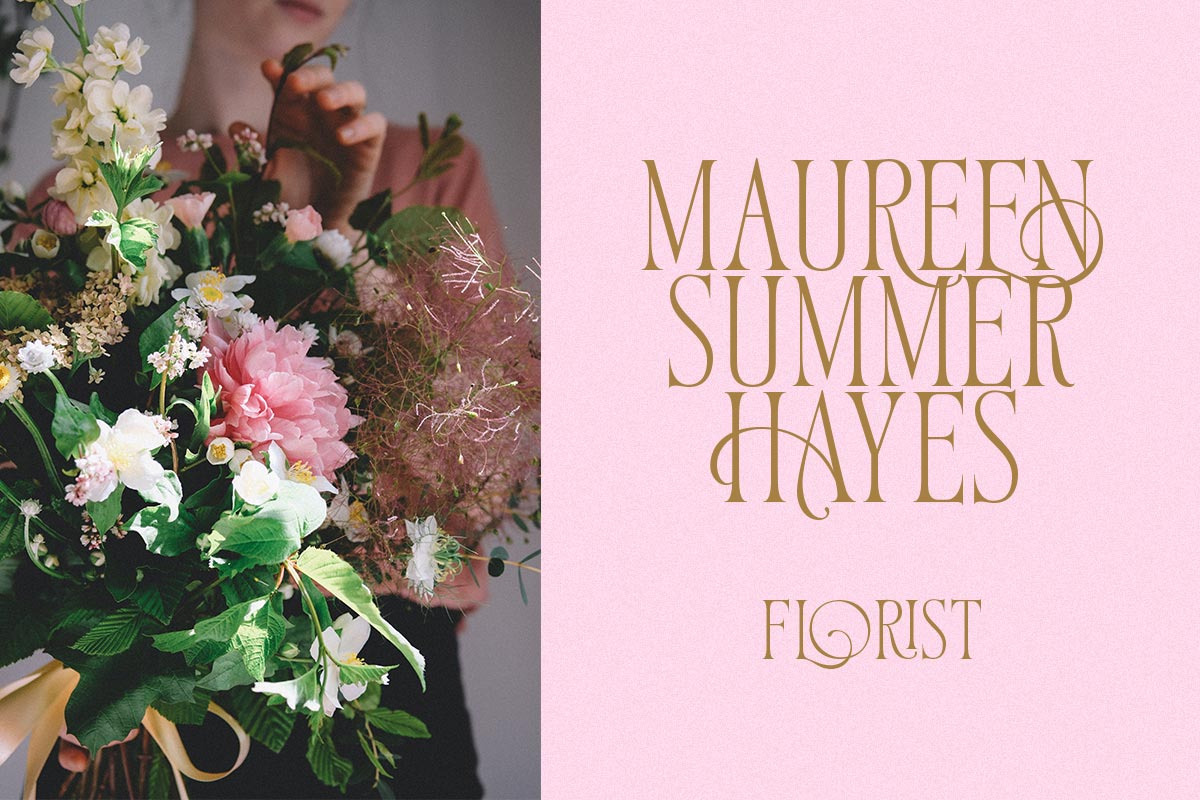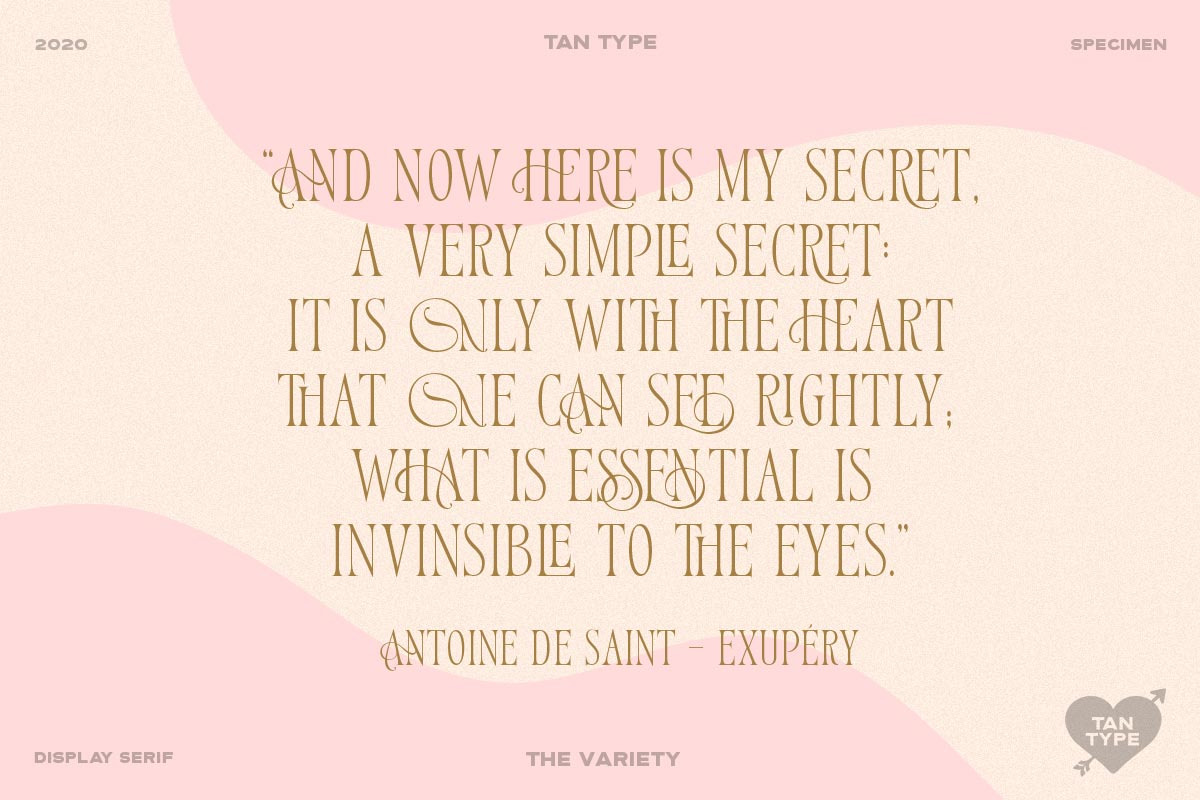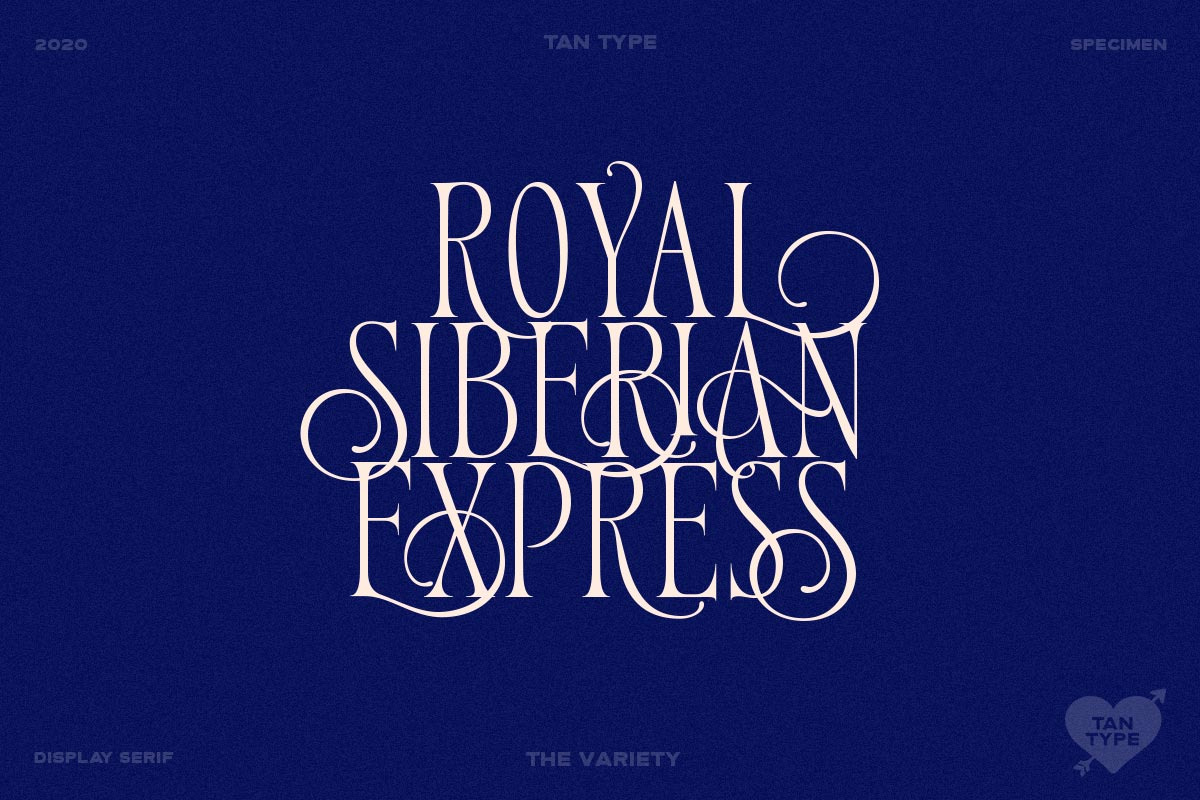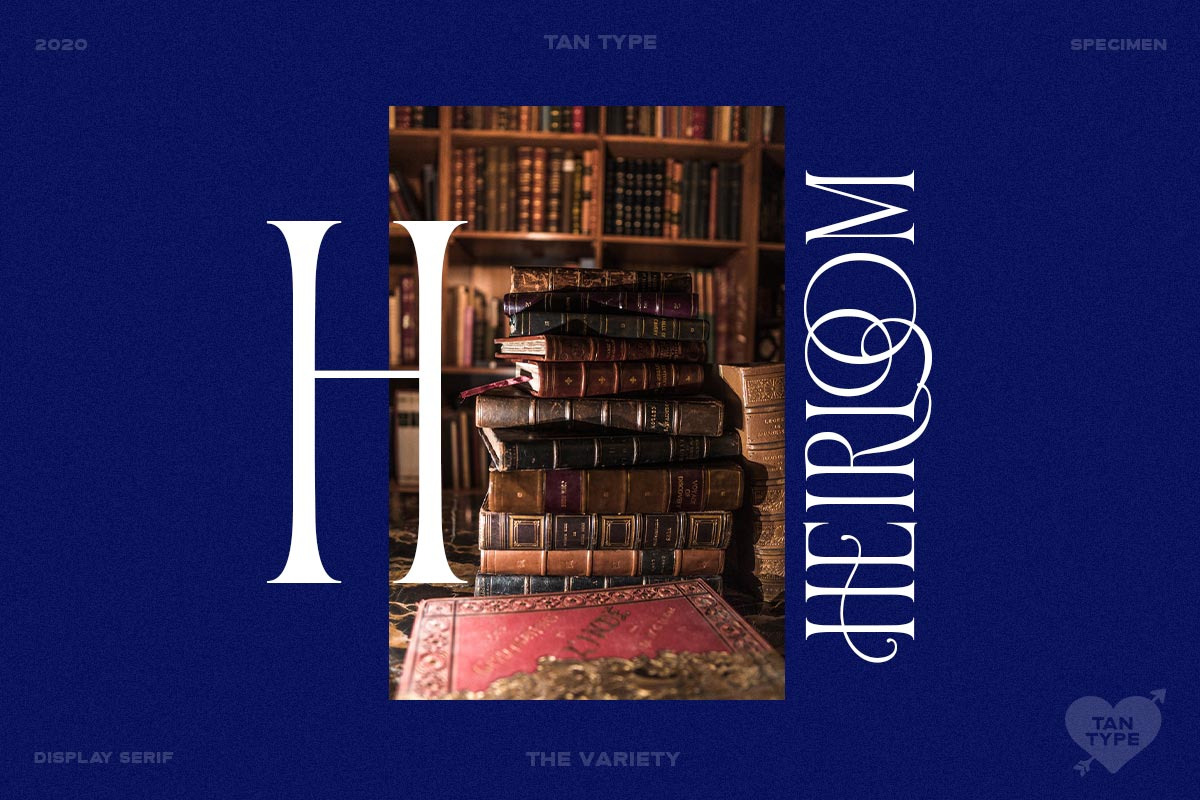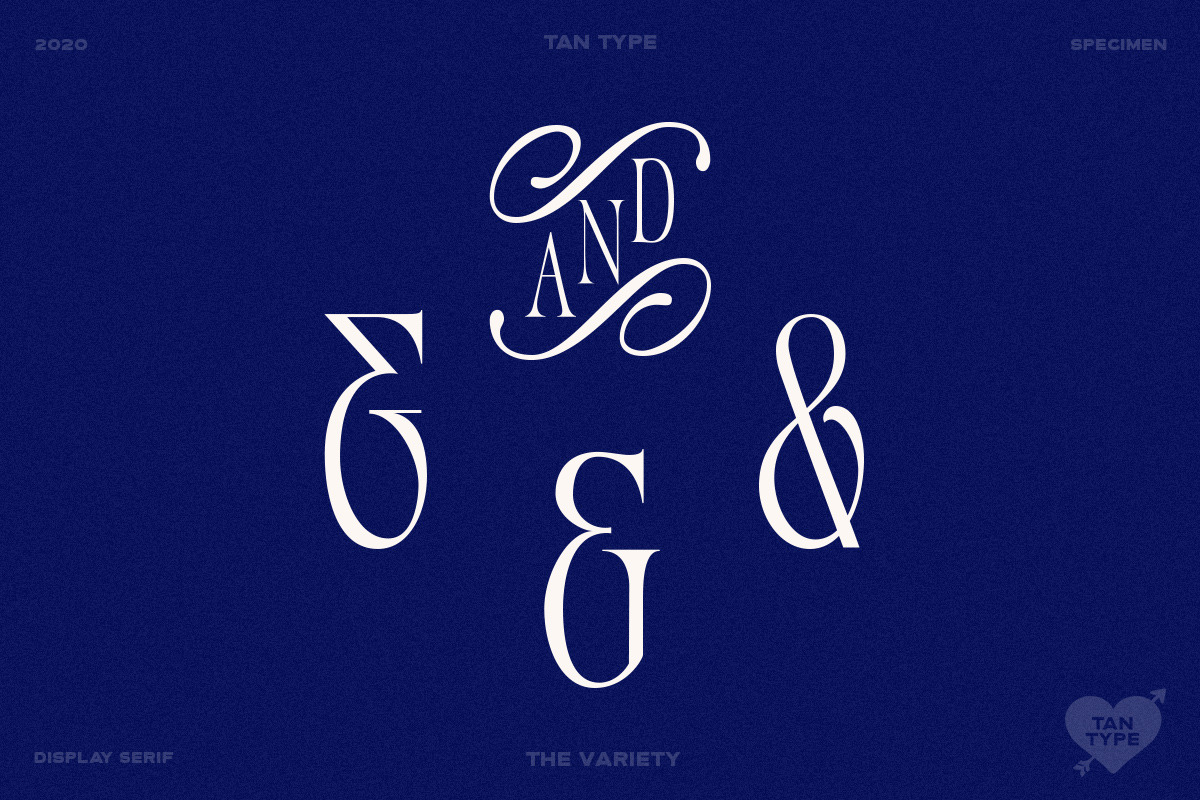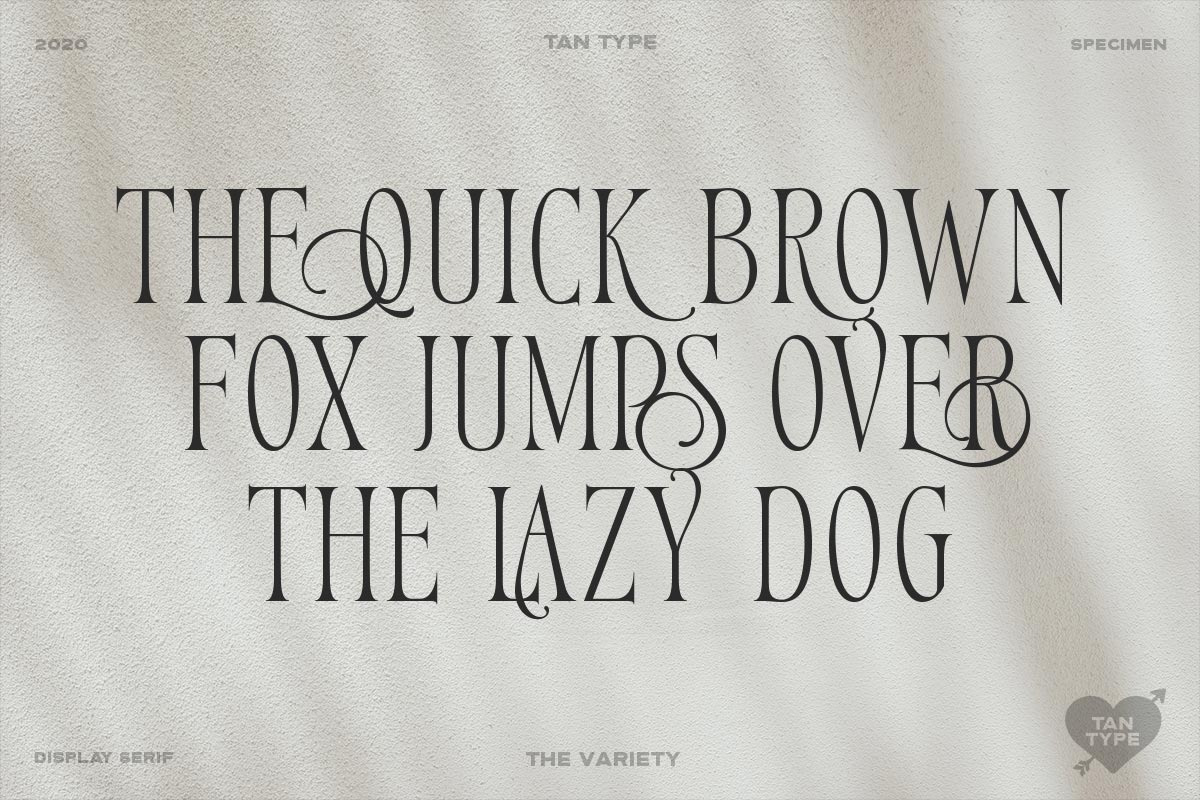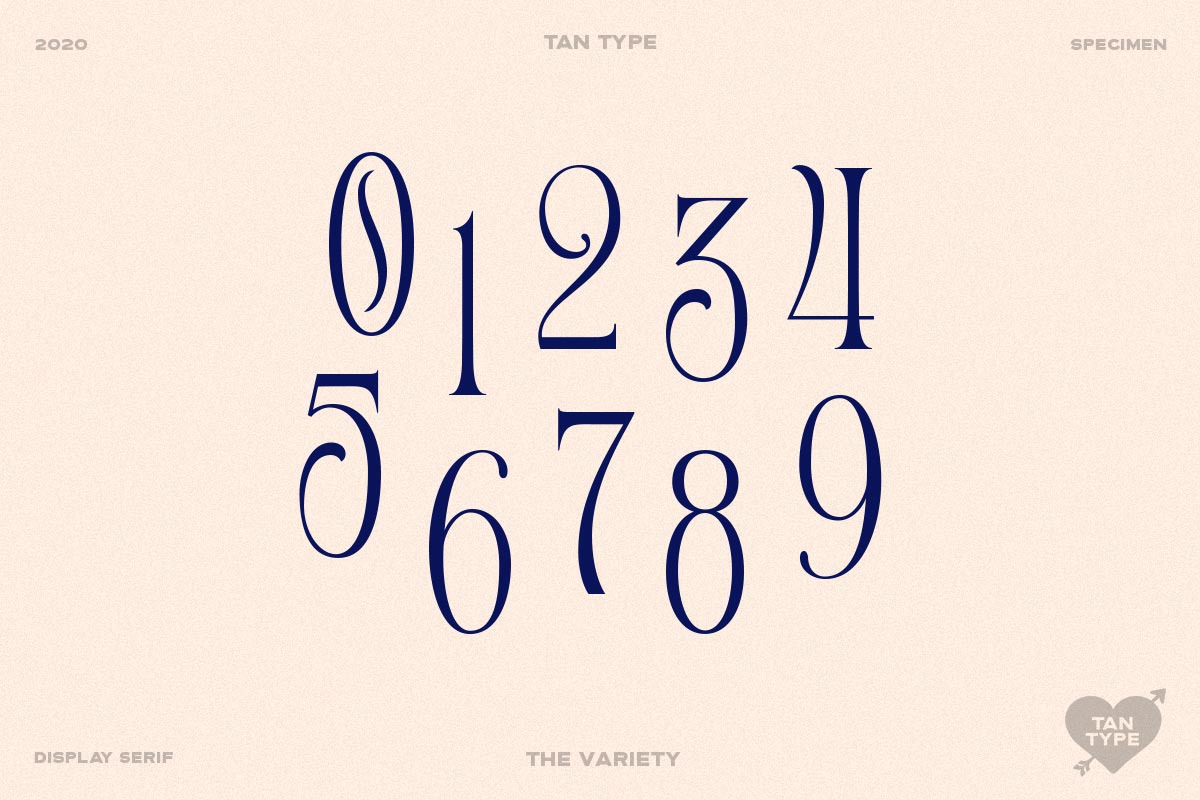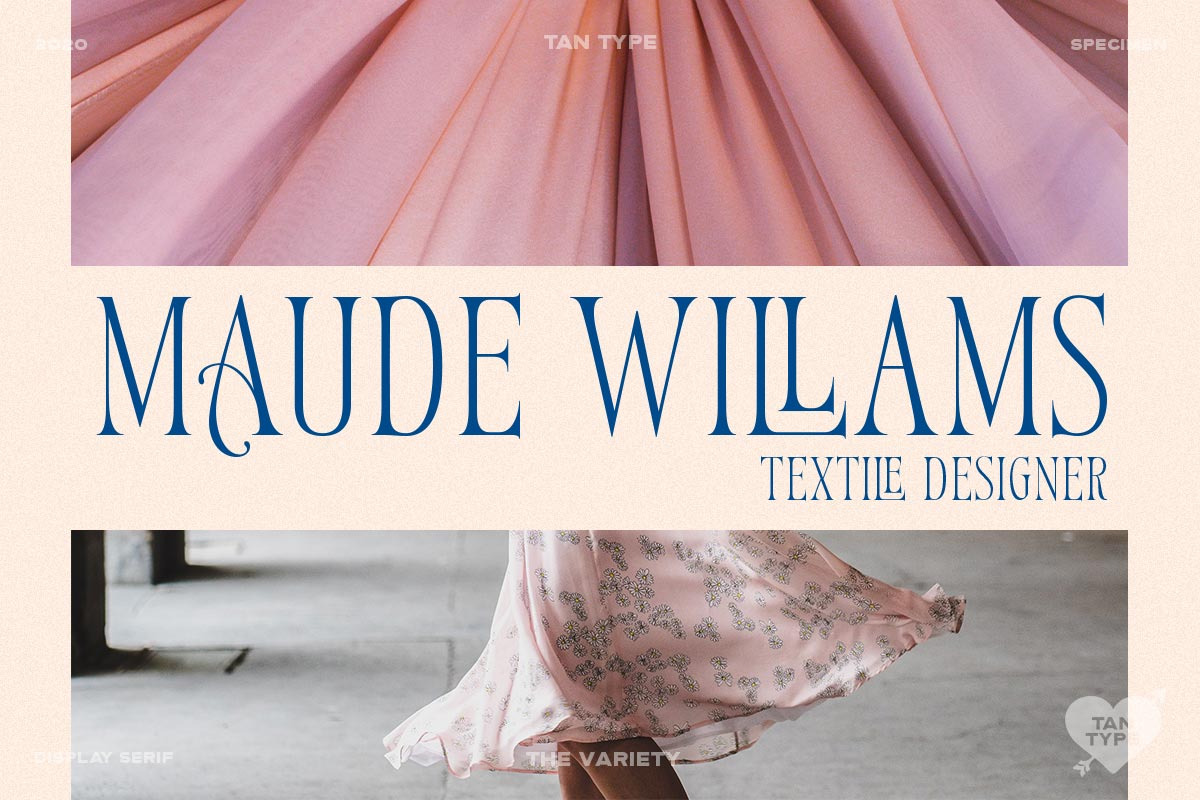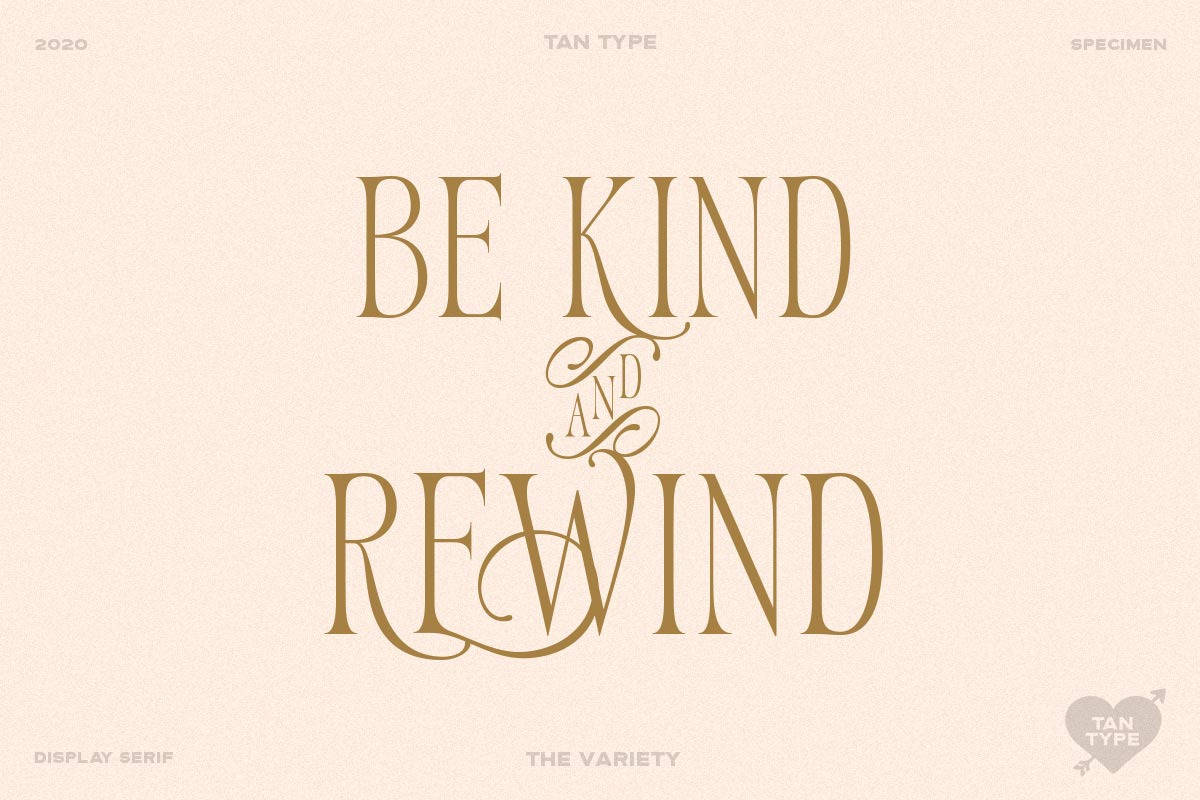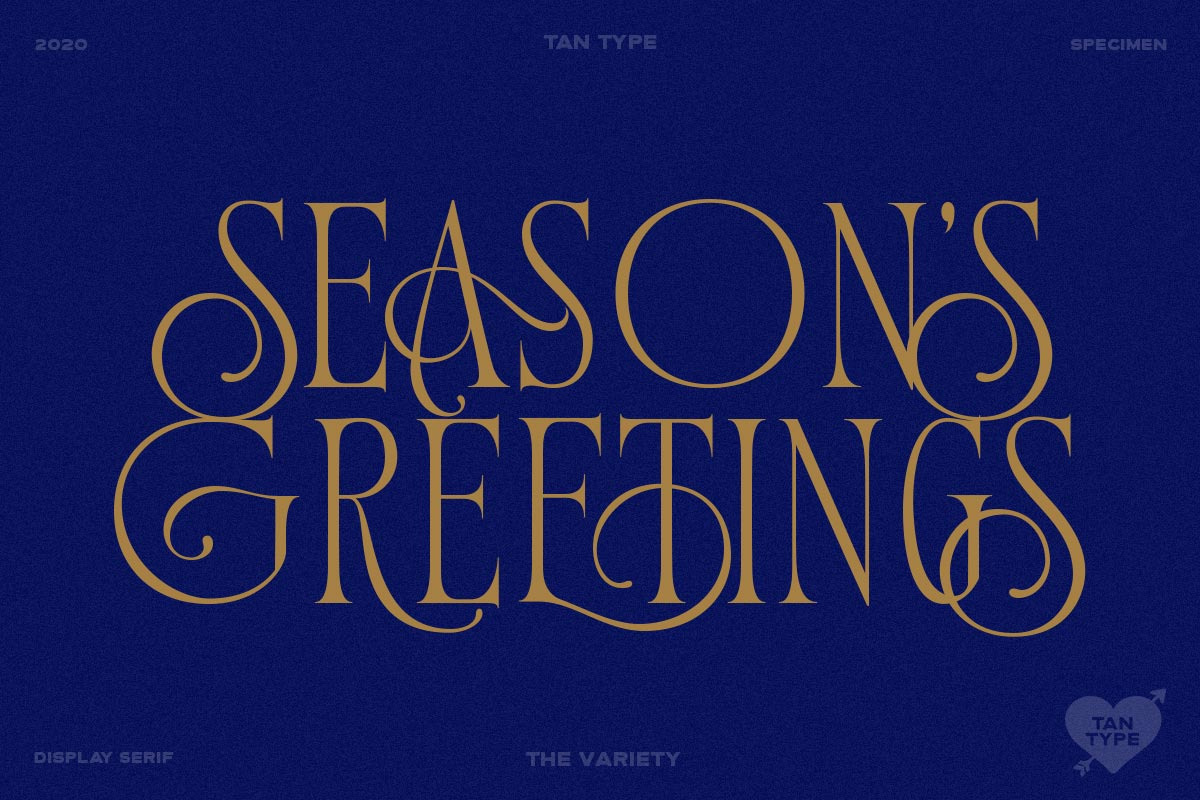
Variety is an all caps display typeface with classical feel. It's perfect for logo, editorial, fashion, anything that needed a bit of luxury and elegance.
limited multilingual support
Style was exactly what my client was looking for! However it is not well-kerned and sometimes difficult to use. Every time an "E" is followed by another letter, it overlaps, meaning you have to manually adjust it.